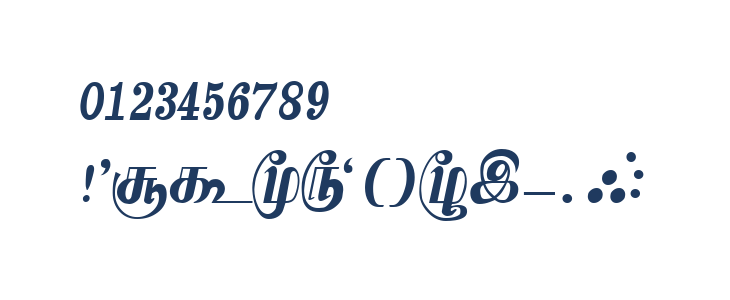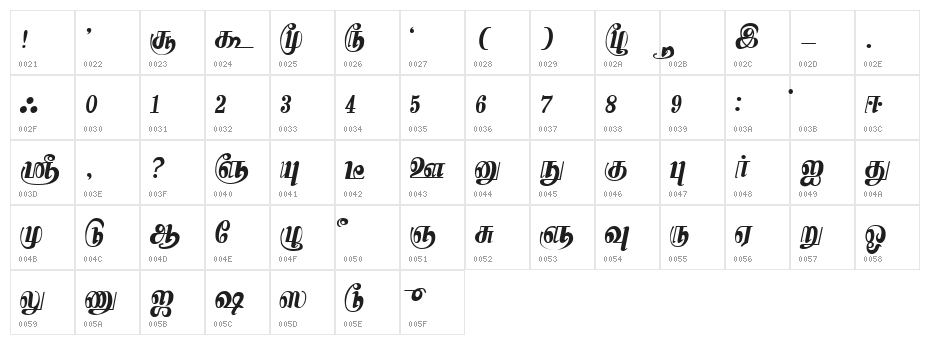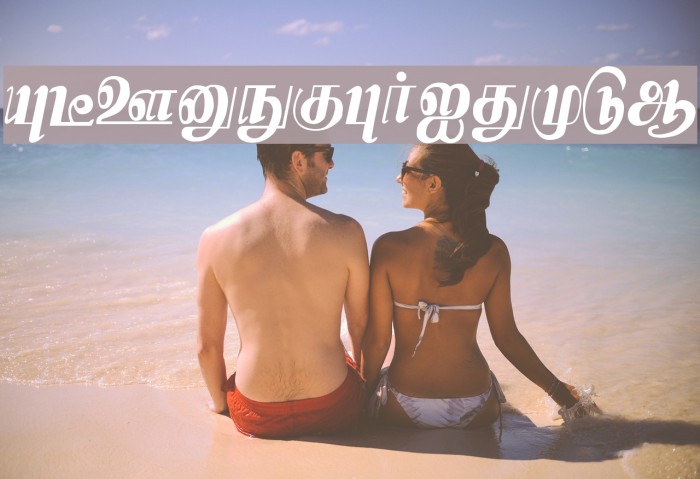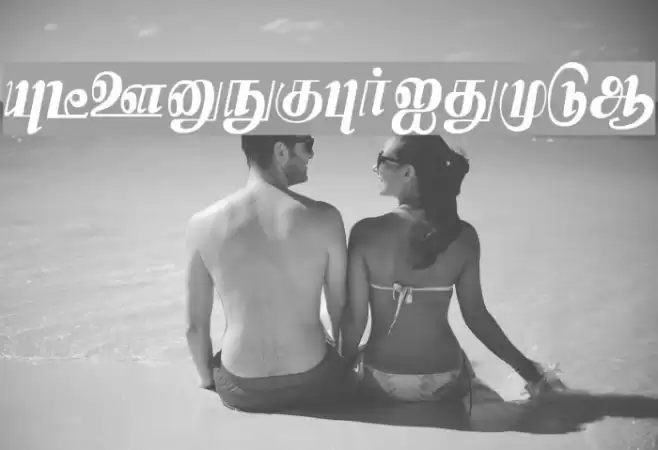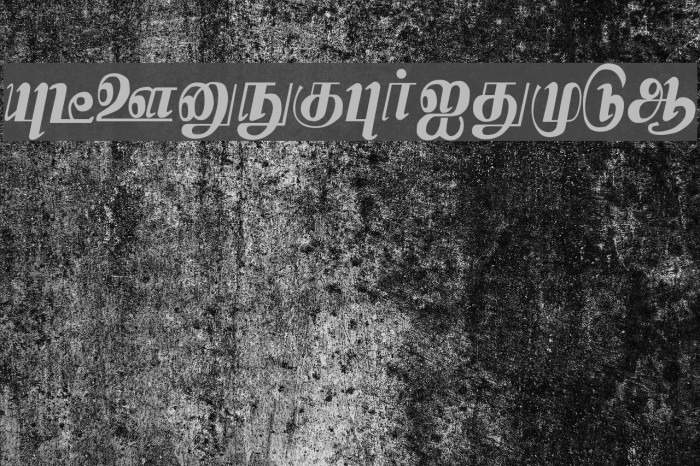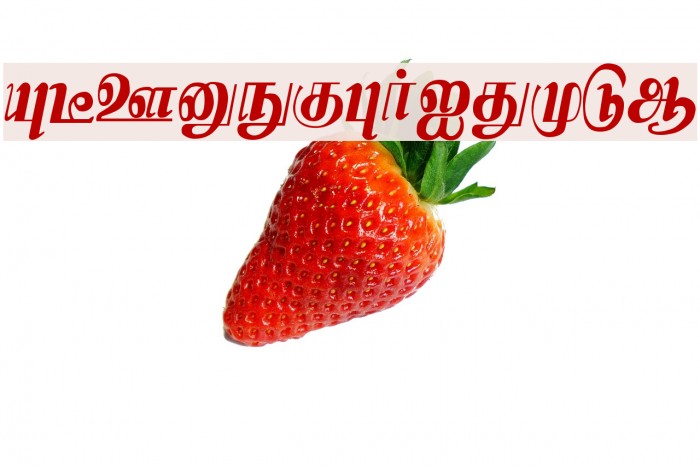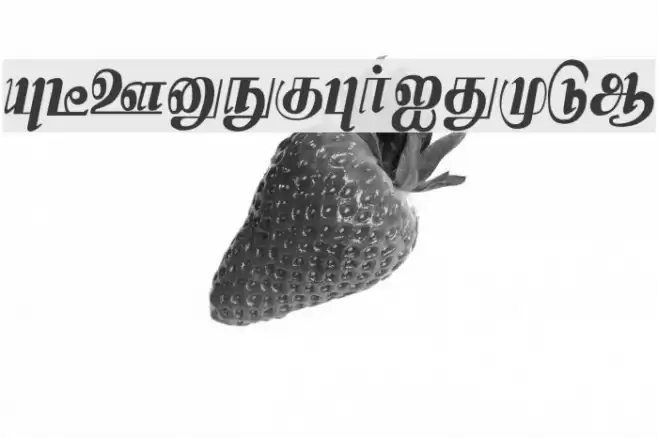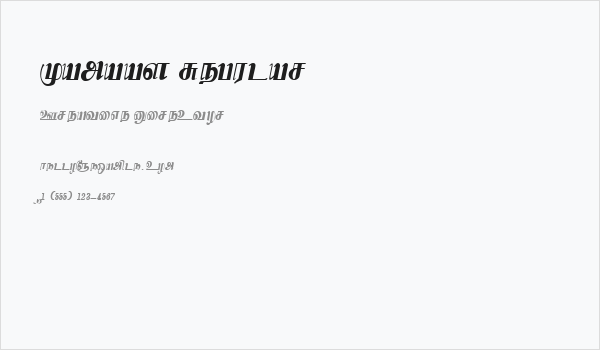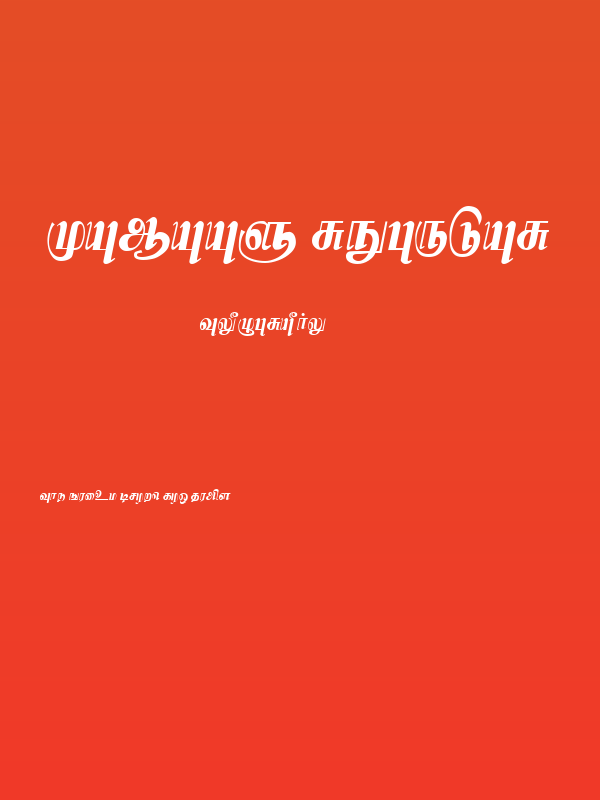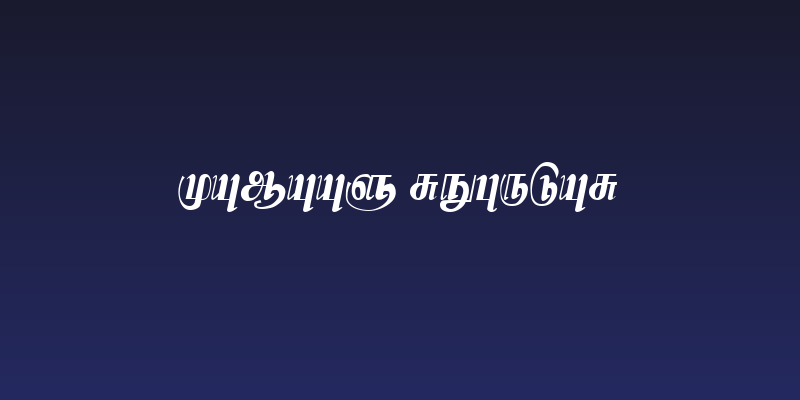
Kamaas Regular Font
Kamaas Regular Description
This font features a distinctive and elegant script style, characterized by its flowing and connected letterforms. The characters exhibit a high degree of slant, giving the text a dynamic and cursive appearance. The strokes are moderately thick, with a consistent weight throughout, providing a balanced and harmonious look. The font includes a full set of numerals and a variety of punctuation marks, maintaining the same stylistic features as the letters. The overall design is sophisticated and suitable for decorative purposes, making it ideal for projects that require a touch of elegance and flair.